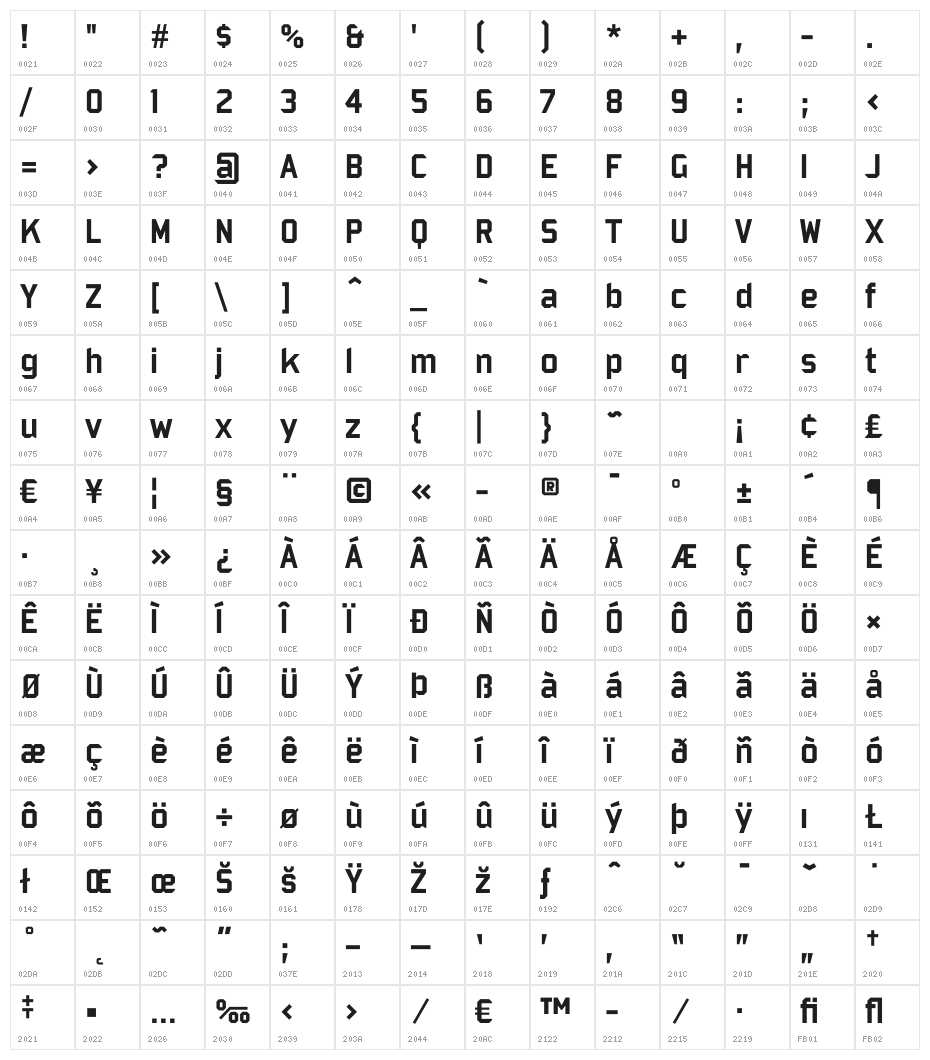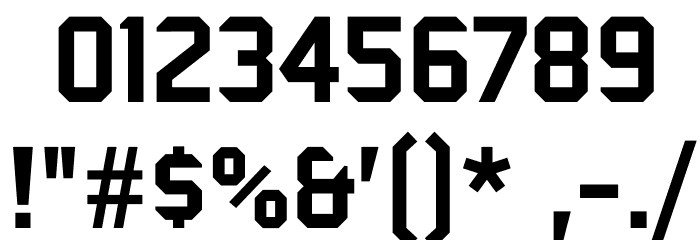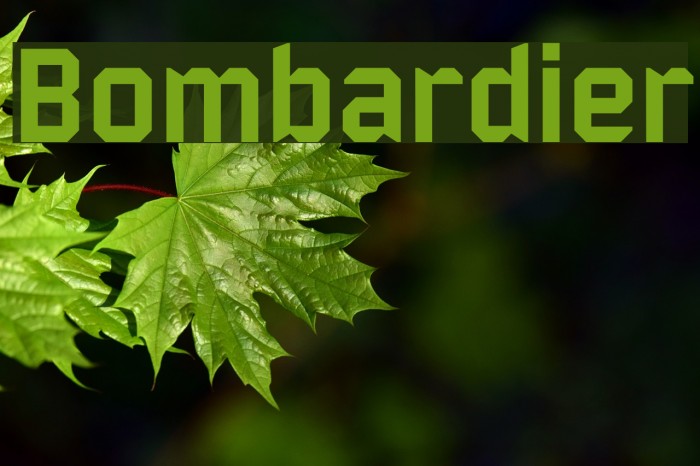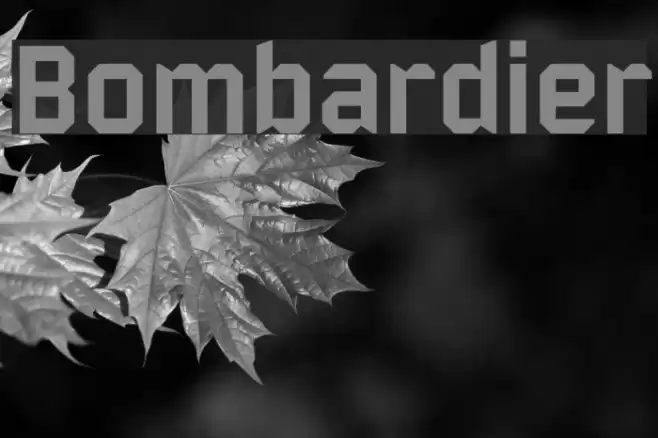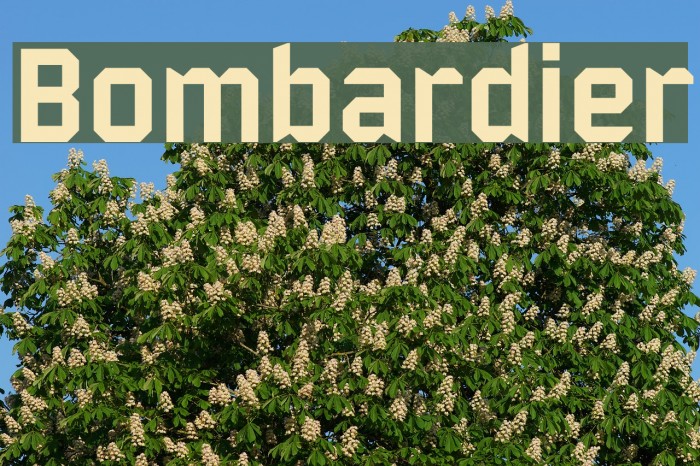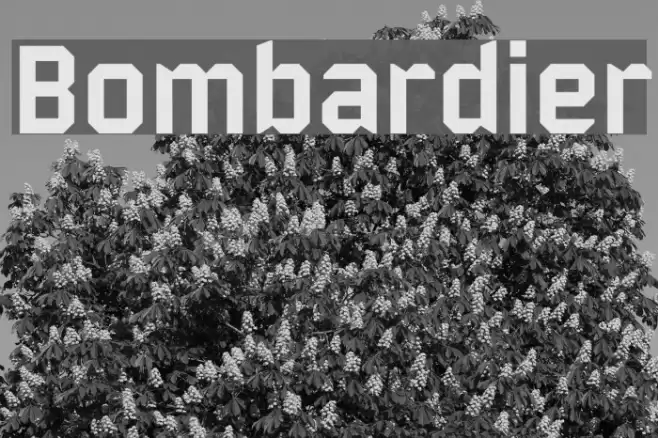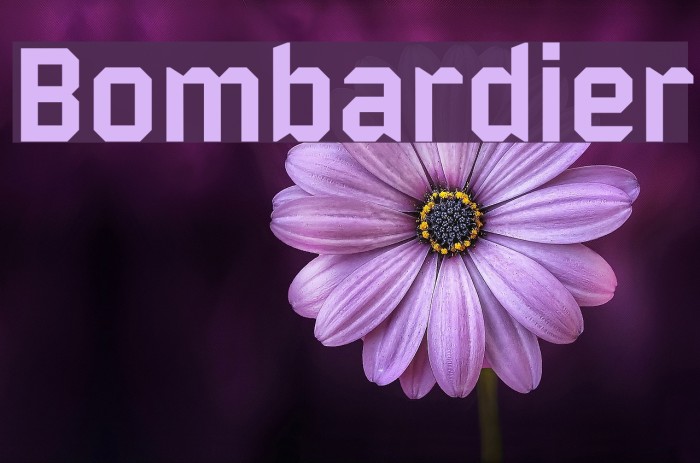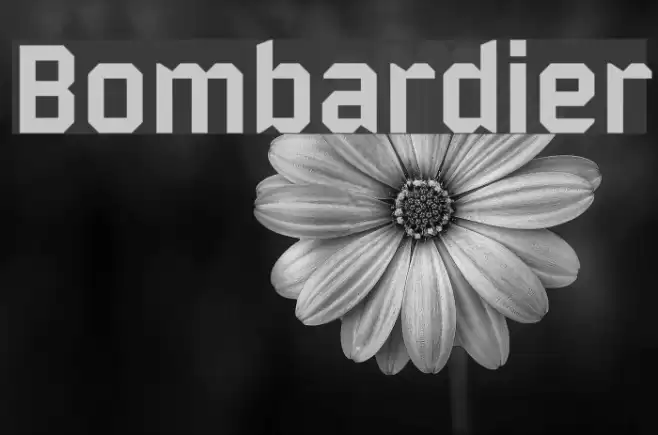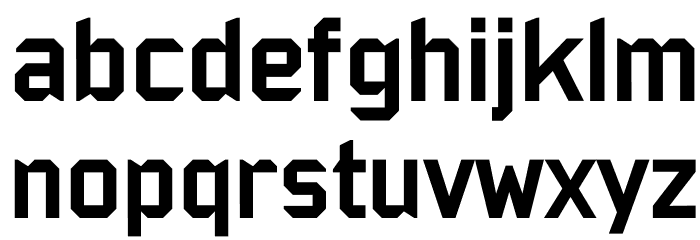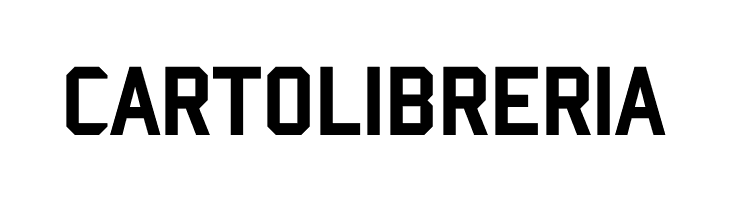
Bombardier Font
Bombardier Description
This font features a bold and geometric design with sharp angles and a strong presence. The uppercase letters are particularly striking, with a uniform height and width that convey a sense of stability and strength. The lowercase letters maintain the geometric style, offering a cohesive look across different cases. Numbers are equally bold, ensuring readability and impact. Special characters are designed to match the overall aesthetic, making this font versatile for various uses. Its boldness and angular design make it ideal for projects that require a modern and assertive appearance.
| Proposed Projects | Ideal for branding, headlines, posters, and any design requiring a strong, modern look. |